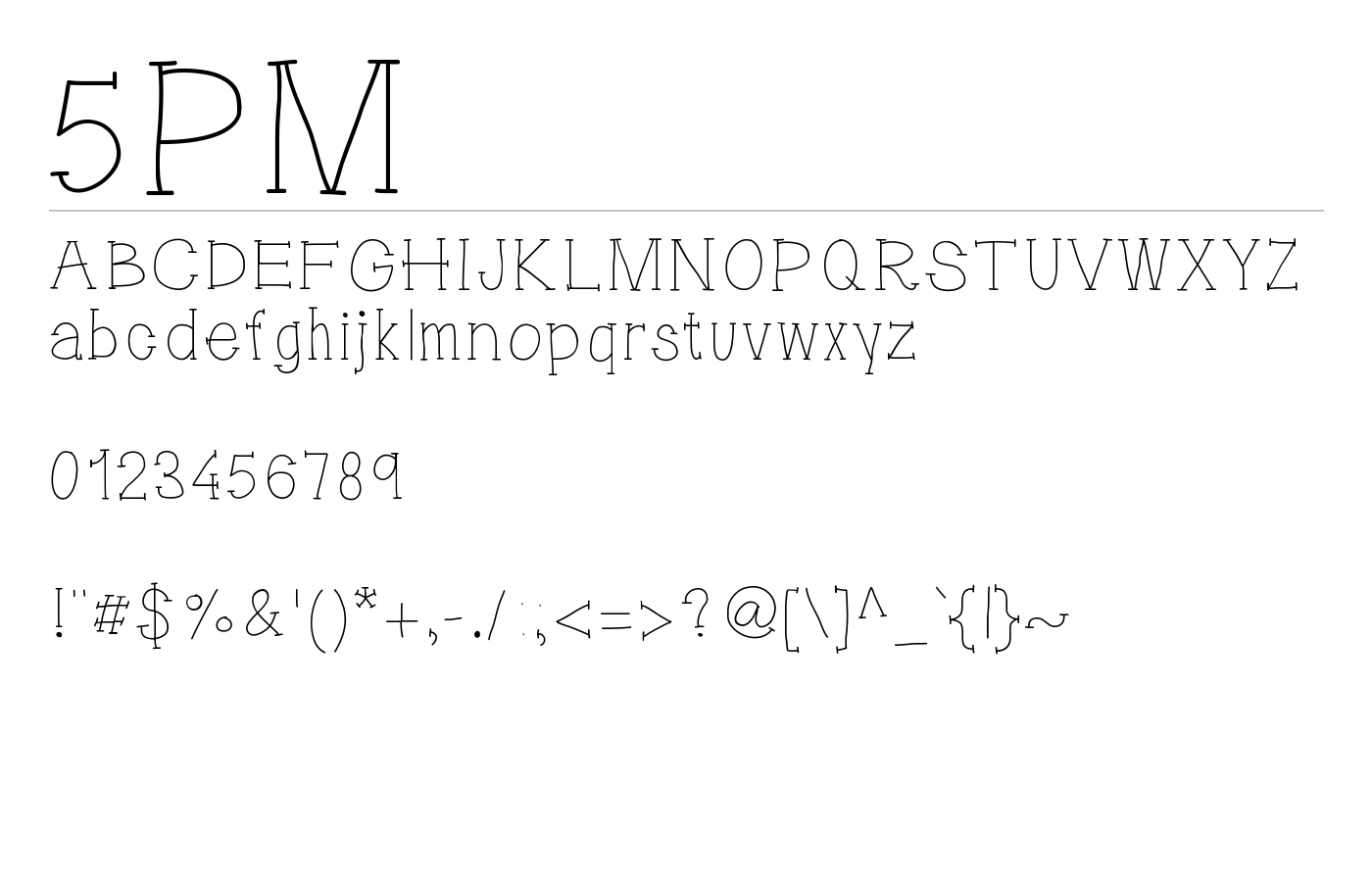
5PM Font is a delicate serif typeface with a hand-drawn, whimsical quality that gives it a playful yet refined personality. Its slender strokes and tall, narrow letterforms create an airy, light feel, making it ideal for creative projects that want to convey charm and individuality without sacrificing readability. This font works well in editorial layouts, invitations, and branding that seek a touch of uniqueness and subtle elegance.
5PM Font